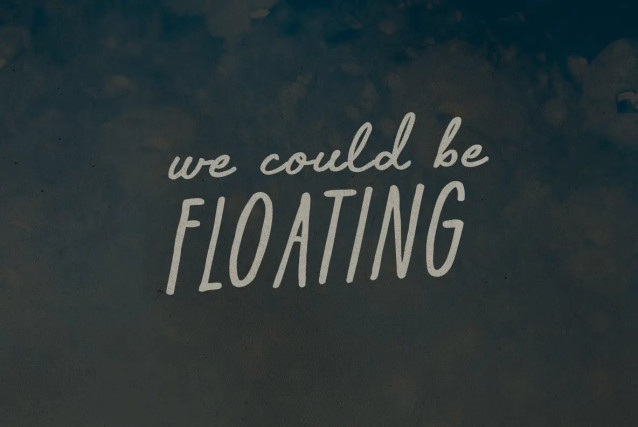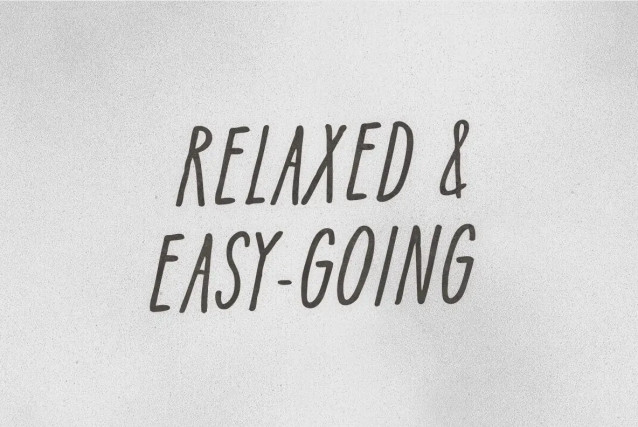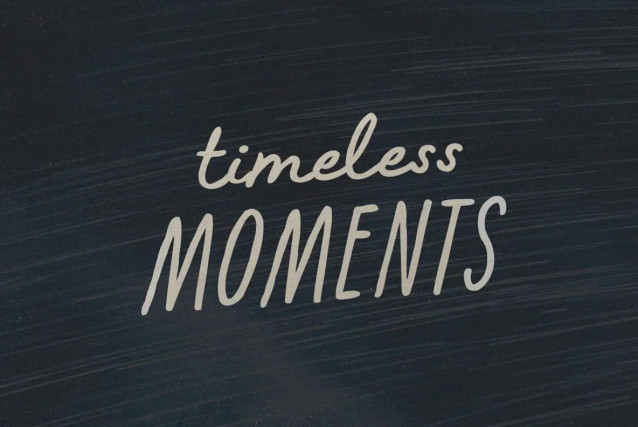
Timeless Moments Font
Timeless Moments Font – Handwritten Brush Script Font. Experience the magic of Timeless Moments. Cherish every heartbeat, every laugh, and every precious memory. Don’t let life’s precious occasions pass you by. Live in the moment and create lasting memories.